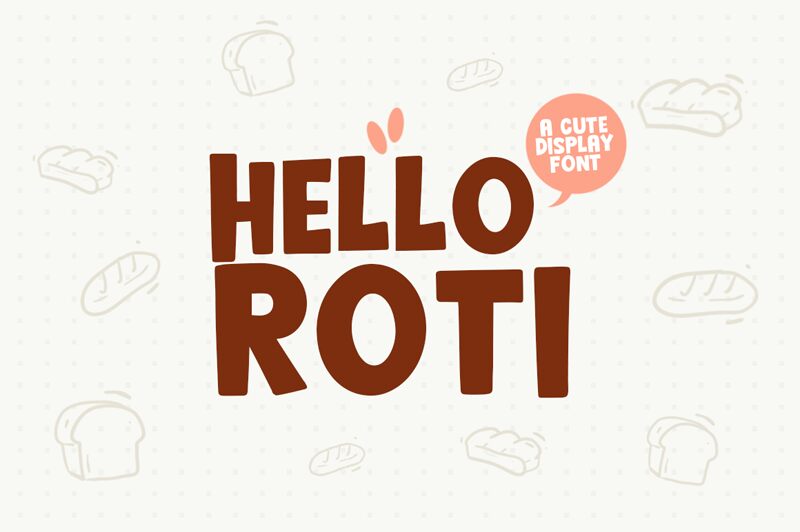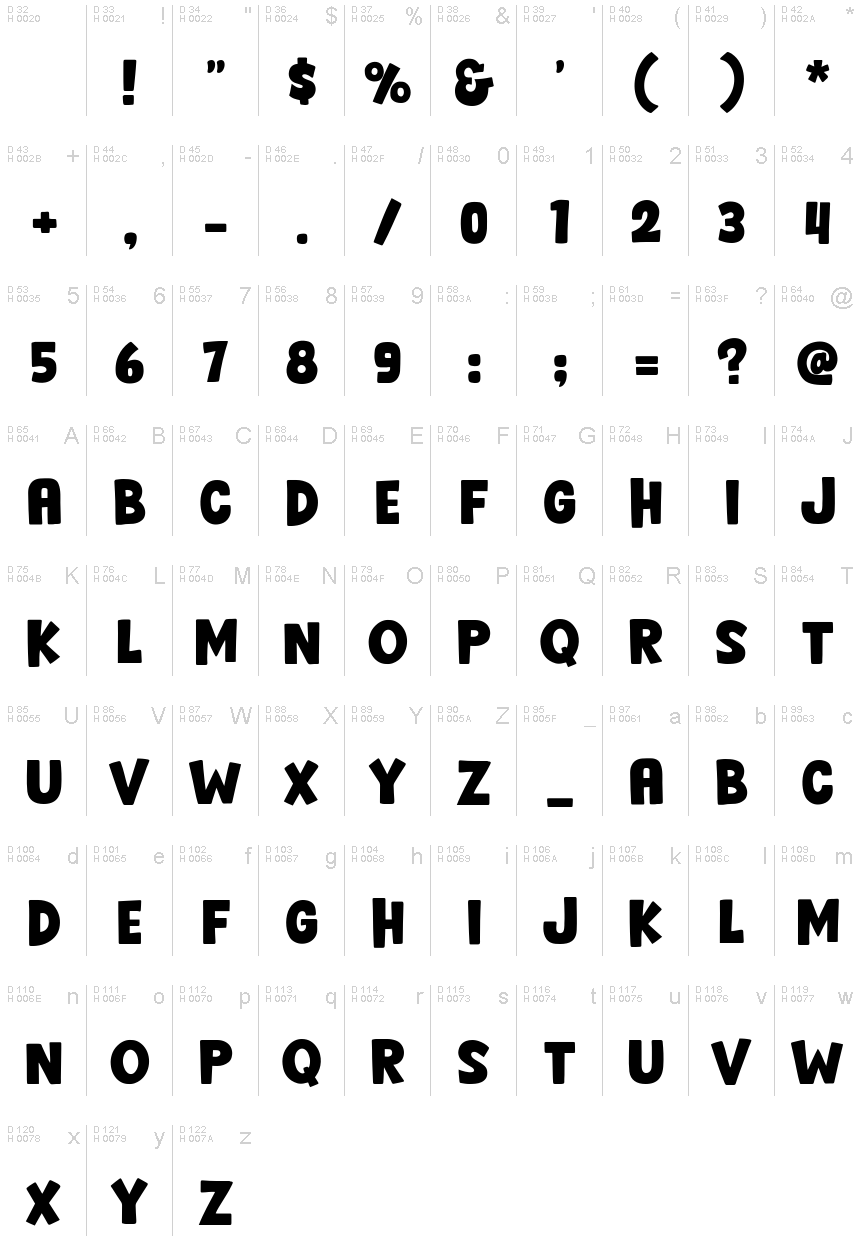
Hello Roti
Designed by Khurasan, Hello Roti is a playful display font that brings a delightful cartoonish charm to any design. With its bold weight and whimsical style, this font exudes an energetic and friendly vibe that captures attention effortlessly. The letters are slightly uneven, adding to its hand-drawn appeal and making it perfect for projects that seek to convey warmth and creativity.
Ideal for children's books, posters, logos, and playful branding materials, Hello Roti injects fun into every character. Its unique personality makes it stand out in both digital and print formats, ensuring your message is not only seen but remembered. Embrace the cheerful spirit of Hello Roti to make your designs lively and unforgettable.